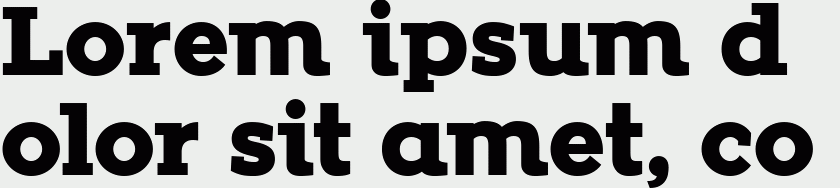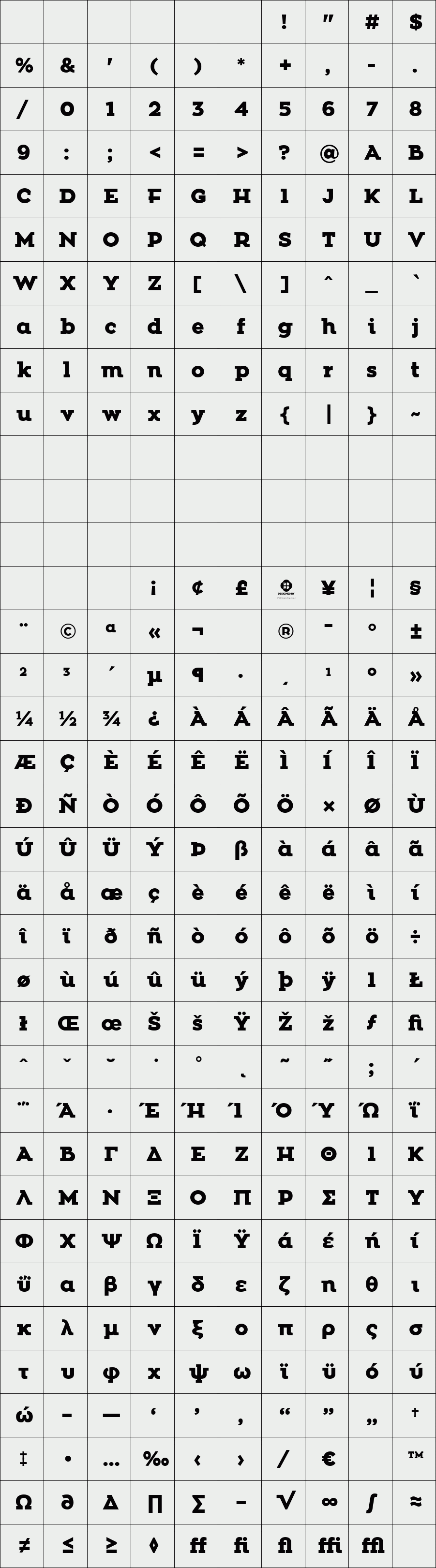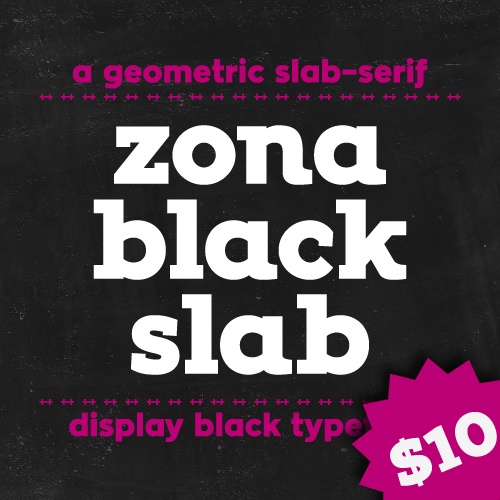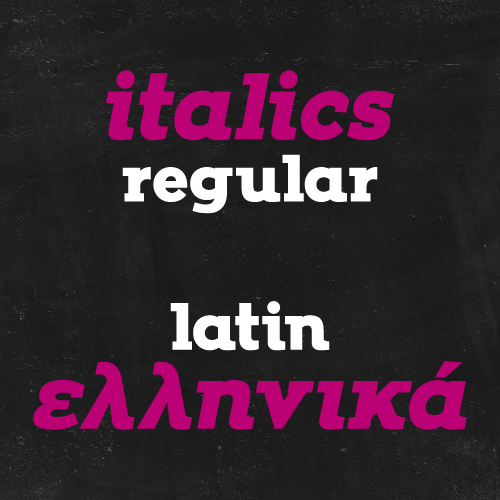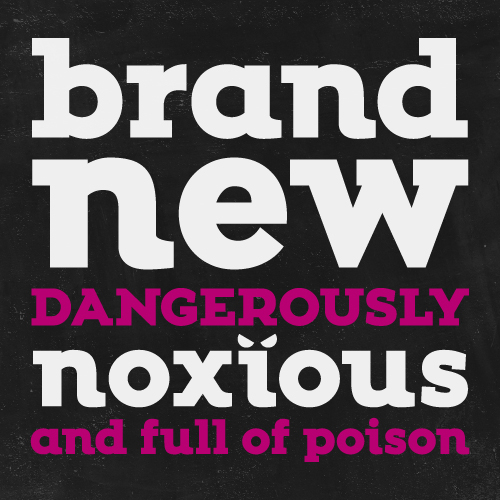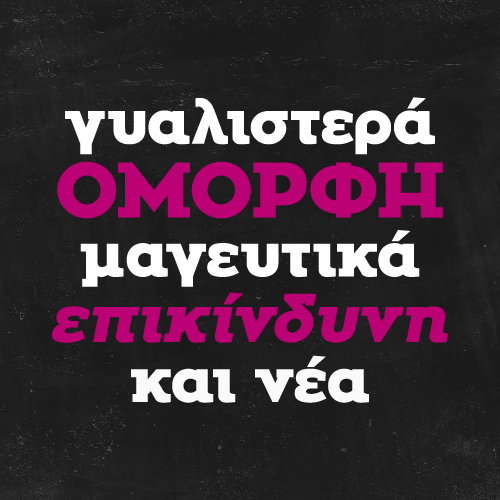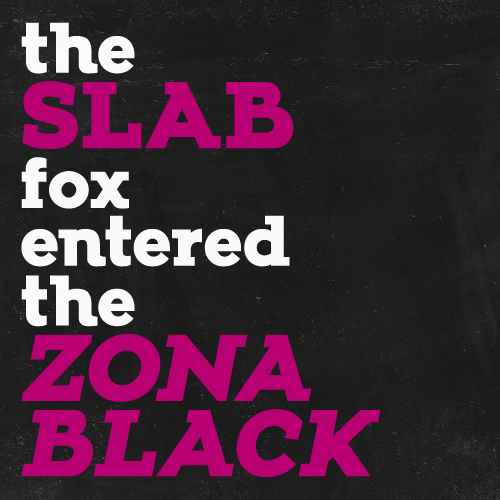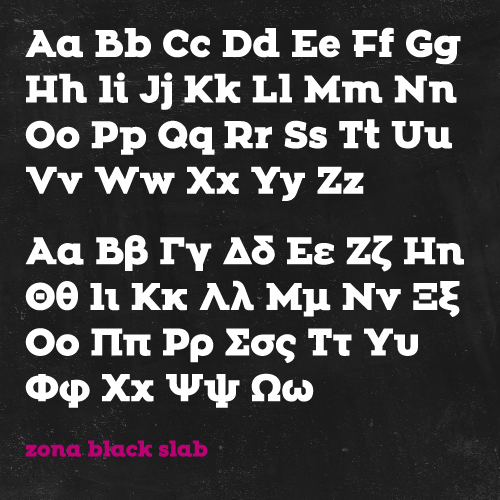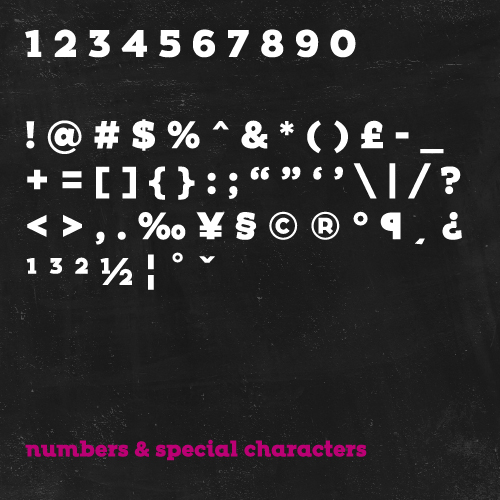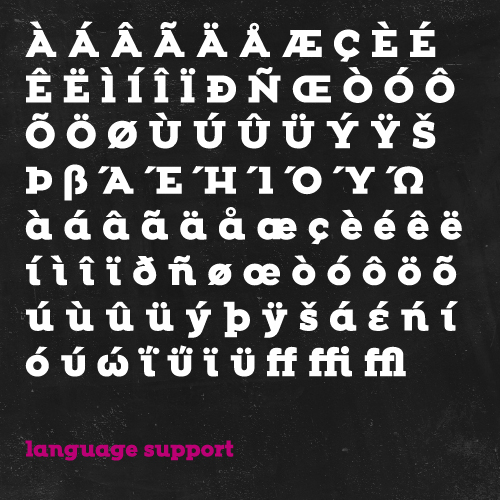
Zona Black Slab
/ Zona Black Slab Regular
Zona Black Slab is a geometric slab–serif display black typeface. It is the brother font of Zona Black which was inspired by posters from the late 1920’s. Despite being black it has a tall x–height making it quite legible even in smaller sizes.It's strong features are the clean lines and neat square slabs and the distinct glyphs which tend to look even more beautiful in big sizes. Zona Black Slab supports latin and greek characters, ligatures and special characters.
Designer: Kostas Bartsokas